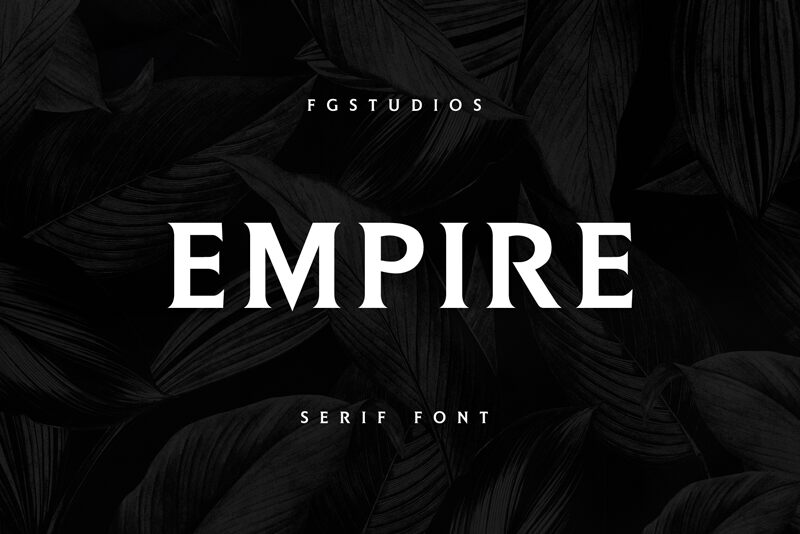
Empire
Empire, a captivating serif font crafted by FG Studios, exudes an aura of timeless elegance and grandeur. Its robust, yet refined letterforms command attention, radiating a sense of authority and sophistication. The font's intricate serifs and sculpted, angular strokes lend it a striking, yet harmonious aesthetic, seamlessly blending classic and contemporary influences. Empire's unique character evokes a sense of regal poise, making it an ideal choice for projects seeking to convey a strong, authoritative presence.
The versatility of Empire extends far beyond its striking visual appeal. Its versatile nature allows it to seamlessly integrate into a wide range of design applications, from stately publications and high-end branding to elegant event invitations and distinguished editorial layouts. The font's ability to command attention and convey a sense of prestige makes it a valuable asset for designers seeking to elevate the visual impact of their projects.